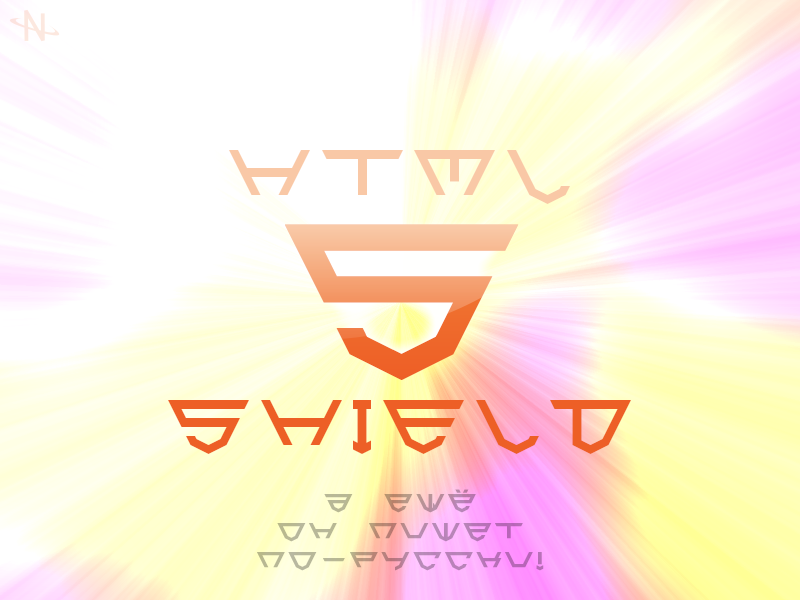
Font name: | HTML5 Shield |
Author: | netgoblin |
Note by netgoblin | |
my first font! cheers =) it's my first experiment with fontstructor. i wanted to make a font like html5 and css3 logotypes... got it too expanded. you can also watch it here: http://fontstruct.com/fontstructions/show/html5_shield |